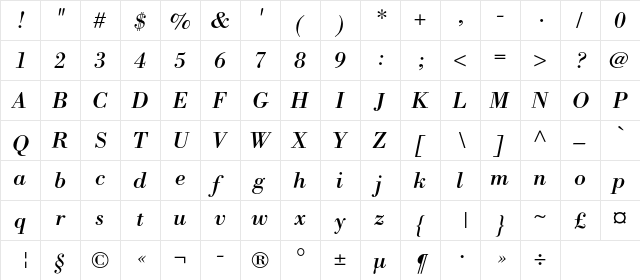
BorjomiC Italic
Design Context for BorjomiC Typeface
BorjomiC offers clean, dependable letterforms without strong stylistic allegiance, making it a practical choice for designers who need flexibility. Its italic angle brings a sense of urgency and motion to the letterforms.
Pro Tip: Try BorjomiC for annotation and caption copy alongside an upright companion — the contrast in angle creates a dynamic but ordered typographic system.